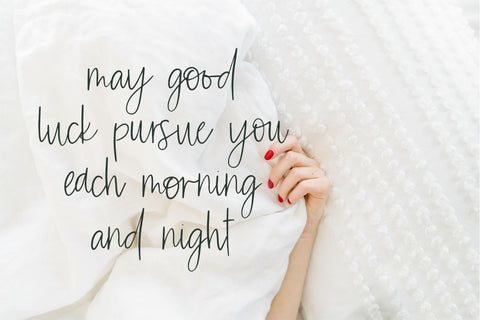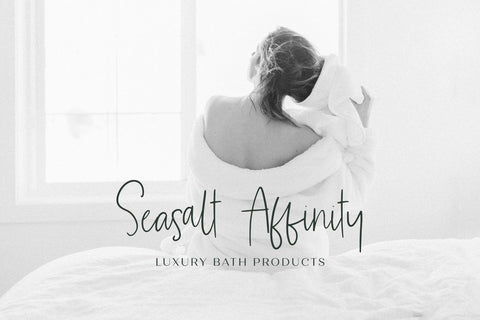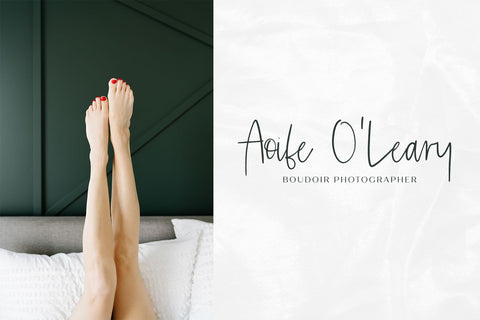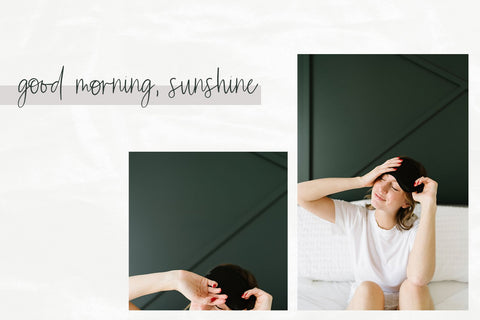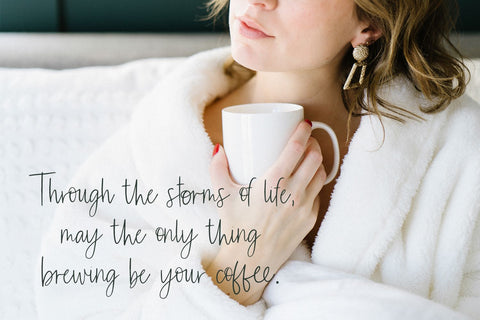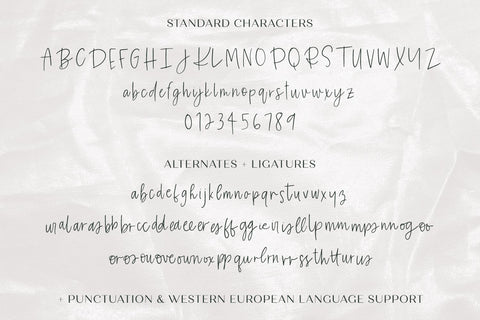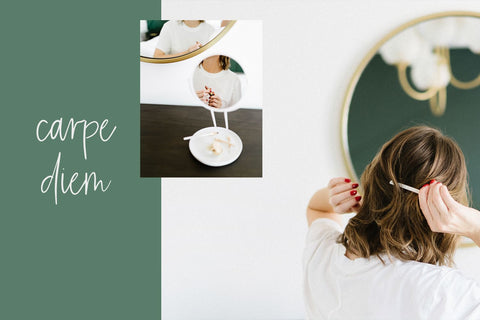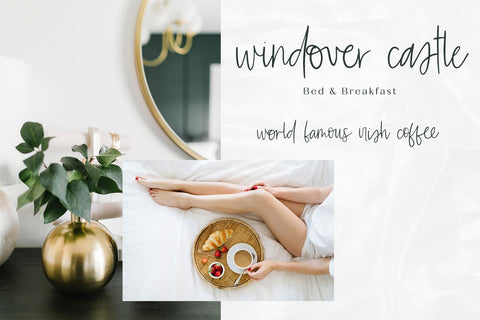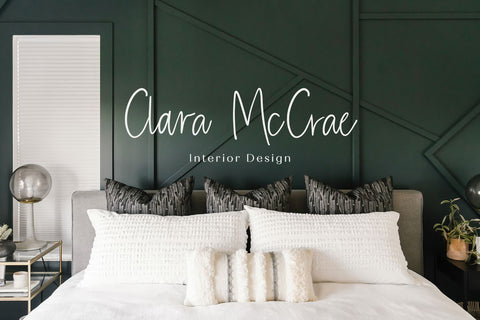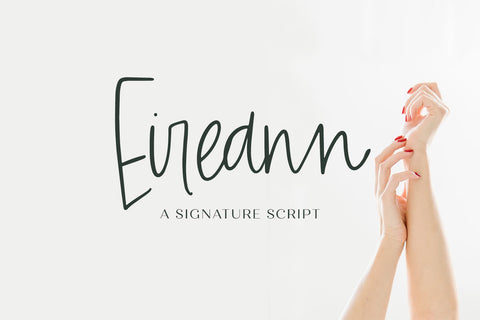
Eireann Signature Script Font
Meet Eireann Signature Script, a handwritten font that mimics the look & feel of random scrawly notes.  A bit feminine in nature, Eireann is thin & fashionable, but still quite impactful. Eireann Signature Script includes a set of lowercase alternates so that you can customize your text just a bit more, and 41 ligatures that make this font super powerful and unique.
Eireann Signature Script is an excellent fit for:
- logo design + branding projects
- print design, like magazines & flyers that need a bold feminine script
- header elements + websites that draw attention
- quote graphics for social media
- projects in the fashion industry, high end creatives, and luxury product lines
Eireann includes:
- full upper + lowercase characters
- numbers + punctuation
- Western European Language Support
- 26 alternates
- 41 ligatures